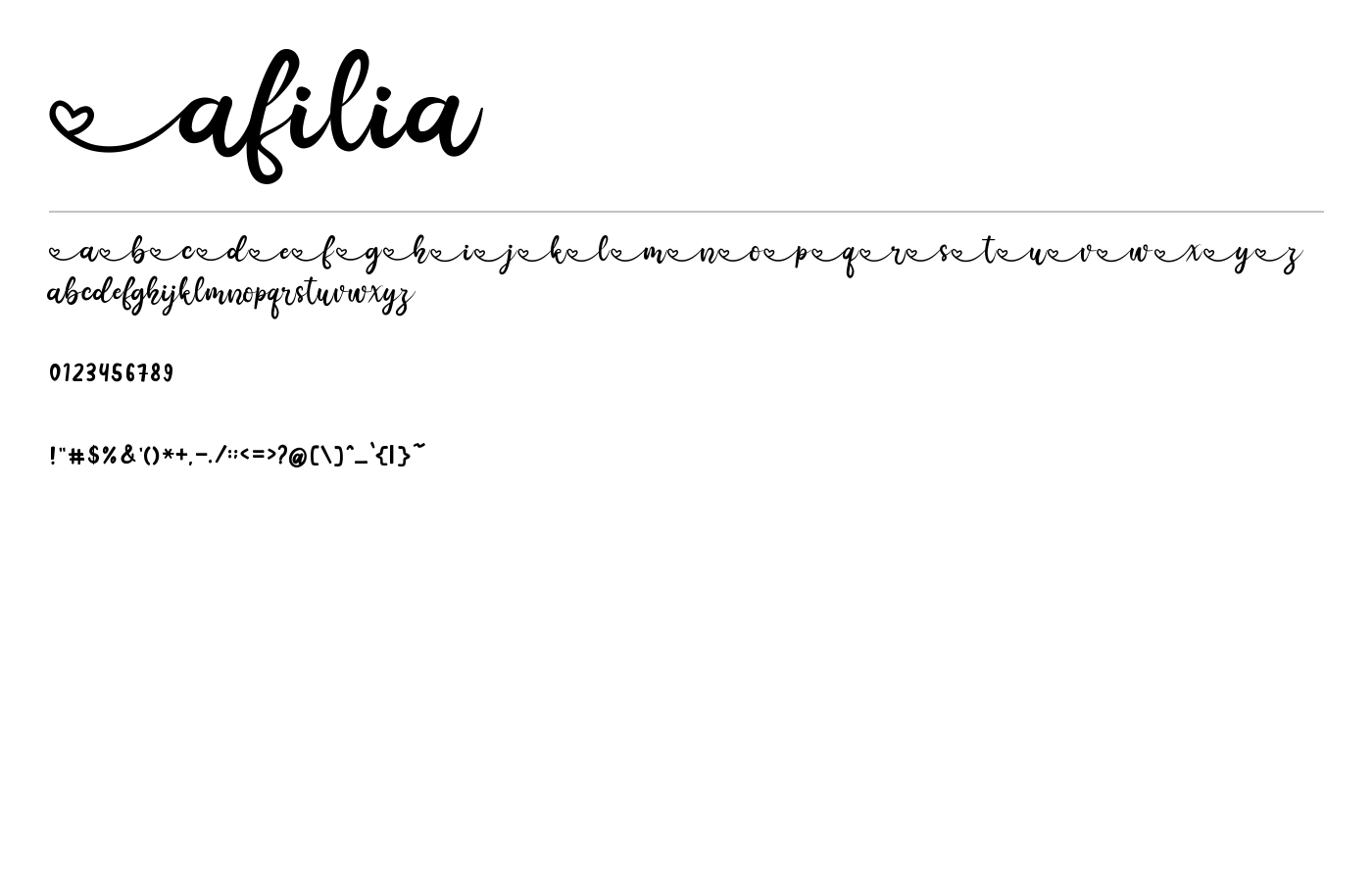
Afilia is a playful and elegant script font featuring smooth, flowing strokes with charming heart-shaped flourishes that add a whimsical and romantic touch. Its moderately high x-height and consistent weight make it highly readable while retaining a personal, handwritten feel, ideal for invitations, greeting cards, and feminine branding. This font is perfect for adding warmth and personality to designs needing a touch of delicate charm and creativity.
Afilia Font
About Afilia Font